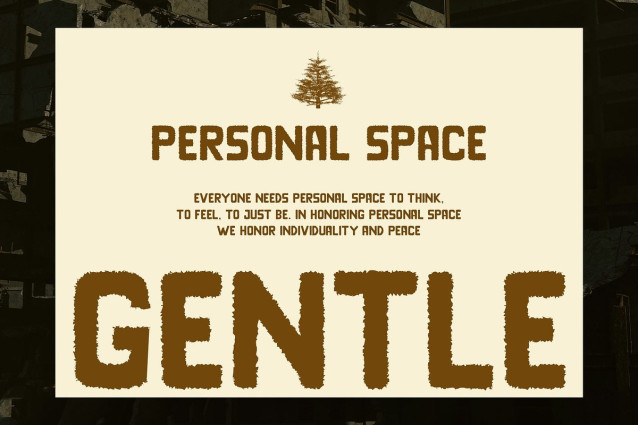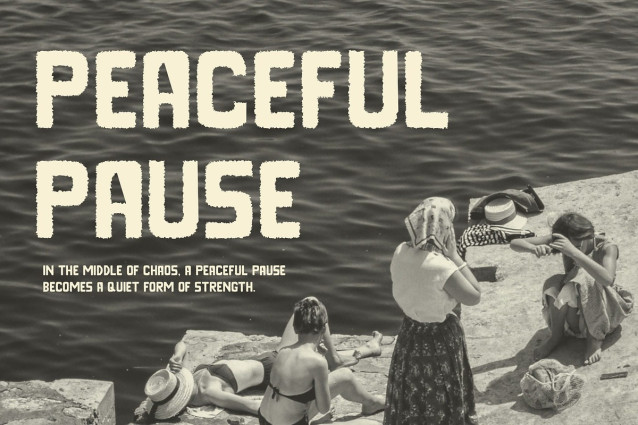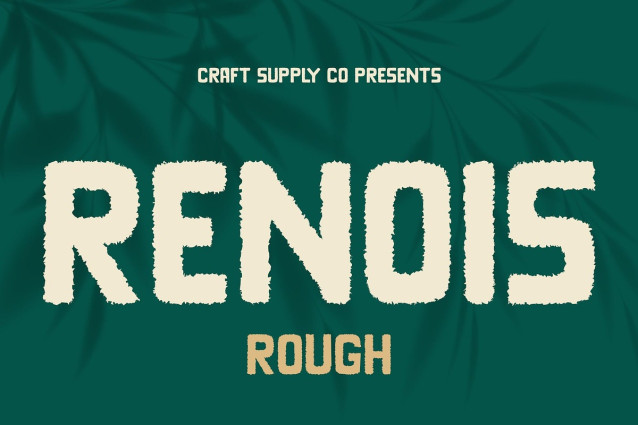
Renois Rough Font
Renois Rough Font is a modern sans-serif display font that blends bold letterforms with subtle rounded edges, striking the perfect balance between strength and friendliness. Its distinctive rough texture adds a rugged, organic character that enhances its visual appeal across creative design applications.
Bold Forms with a Soft Touch Designed with robust shapes and gently rounded corners, Renois Rough delivers a confident presence while maintaining an inviting tone. This makes it ideal for brands and visuals that want to command attention without feeling too harsh or rigid.
Rough Texture for Organic Character The textured finish introduces a handcrafted, worn-in aesthetic that adds personality and depth. Whether you’re designing packaging, apparel graphics, or posters, the roughness brings a tactile quality that enriches the visual narrative.
Approachable Yet Strong Design Language Renois Rough’s unique combination of modern structure and textured warmth makes it highly adaptable. It bridges the gap between bold professional style and approachable creative expression, allowing designers to use it in both striking and heartfelt concepts.
Perfect for Impactful and Expressive Design From bold branding to artistic layouts, Renois Rough is built for visual impact with character. It’s perfect for projects that aim to stand out while conveying a sense of authenticity, creativity, and warmth.